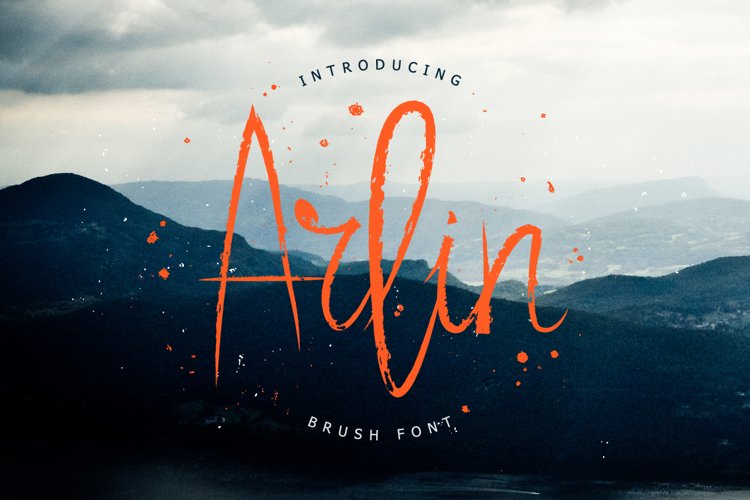
Arlin Brush Font is a hand brushed font.
Arlin Brush Font comes with uppercase and lowercase characters,
large set of punctuation glyphs, numerals, and supports international language.